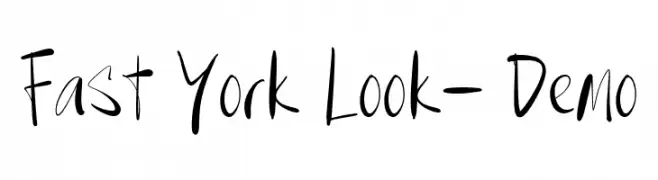
A bold, italicized font with a striped pattern and modern appeal.
A bold, handwritten font with a dynamic and energetic style.
A bold, expressive brush script font with dynamic, hand-painted strokes.
An ink-outline font with a hand-drawn, artistic style.
A bold, three-dimensional decorative font with a retro-futuristic style.
A bold, futuristic font with a 3D effect and industrial style.
A bold, italicized font with dynamic slashes, conveying speed and energy.
A bold, flame-themed decorative font with a condensed and dynamic style.
A dynamic, brush-style font with an expressive, hand-painted look.
A dynamic handwritten font with fluid strokes and artistic flair.
A pictorial font illustrating different fastener and screw head types.
A functional pictogram font for safety and instructional signage.
Instructional pictogram font inspired by airline safety cards.
A playful, bold font with a hand-drawn, dynamic style.
A playful and elegant handwritten script font with dynamic strokes.
A bold, slanted font with a dynamic, speedy appearance.
A futuristic, geometric font with rounded edges and a sci-fi aesthetic.
A bold, brush-style font with dynamic, slanted characters.
A dynamic, edgy font with sharp, angular strokes and a gritty, rebellious feel.
A dynamic brush script font with expressive, hand-drawn strokes.
A clean, modern font with balanced spacing and clear characters.
A playful and dynamic handwritten font with thin, flowing strokes and a casual elegance.
A bold, graffiti-inspired font with a dynamic and edgy style.
A bold, graffiti-inspired font with a playful, artistic style.